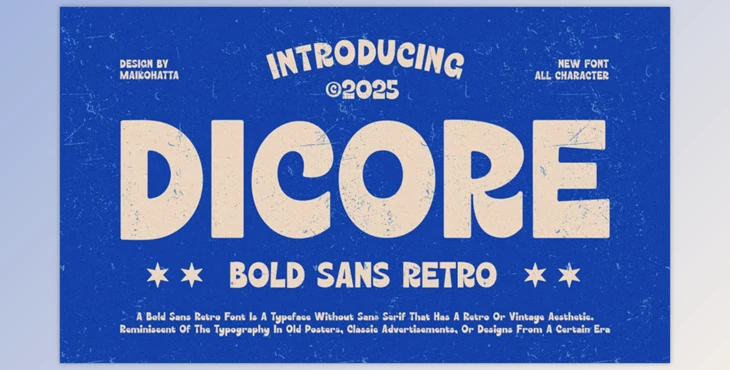
Dicore - Bold Sans retro Font:
Our newest release is the Dicore - Bold Sans retro Font. Adorned with vivid colors, this typeface captures joyful exuberance, imbuing lighthearted flair from handwritten comic and cartoon letters. It is perfect for work intended to be playful and fun, such as poster design, invitation cards, comics, or other promotional material for children or anyone looking for lively.
- Includes uppercase and lowercase alphabets for versatility.
- Supports many languages enabling wider reach to users.
- It contains ligatures for joining characters in a smoother manner.
- Includes alternate characters.